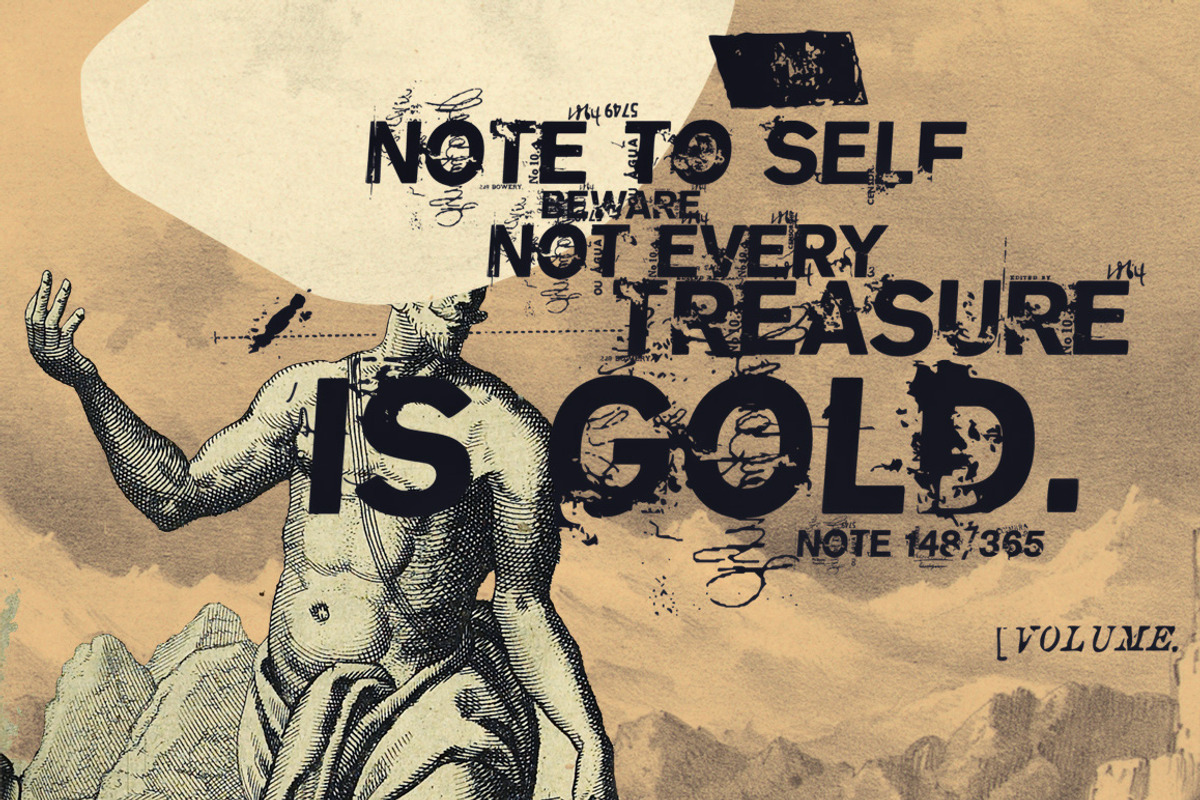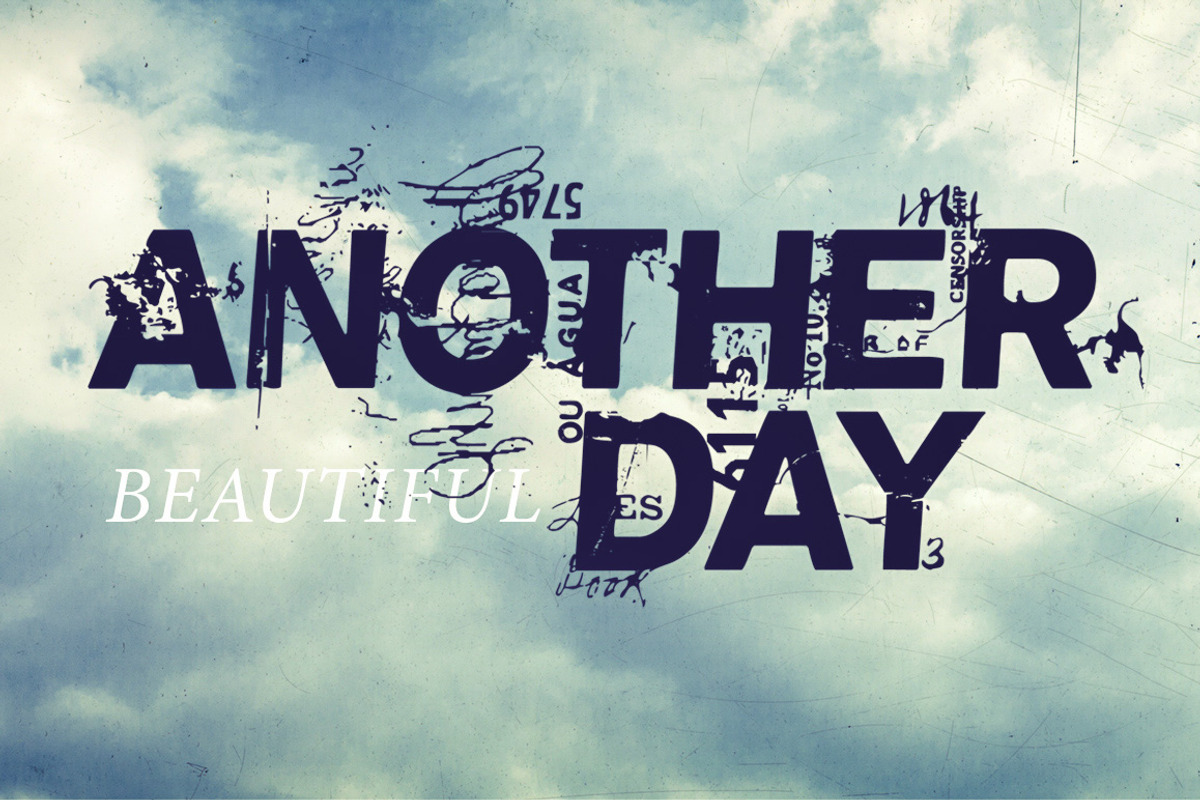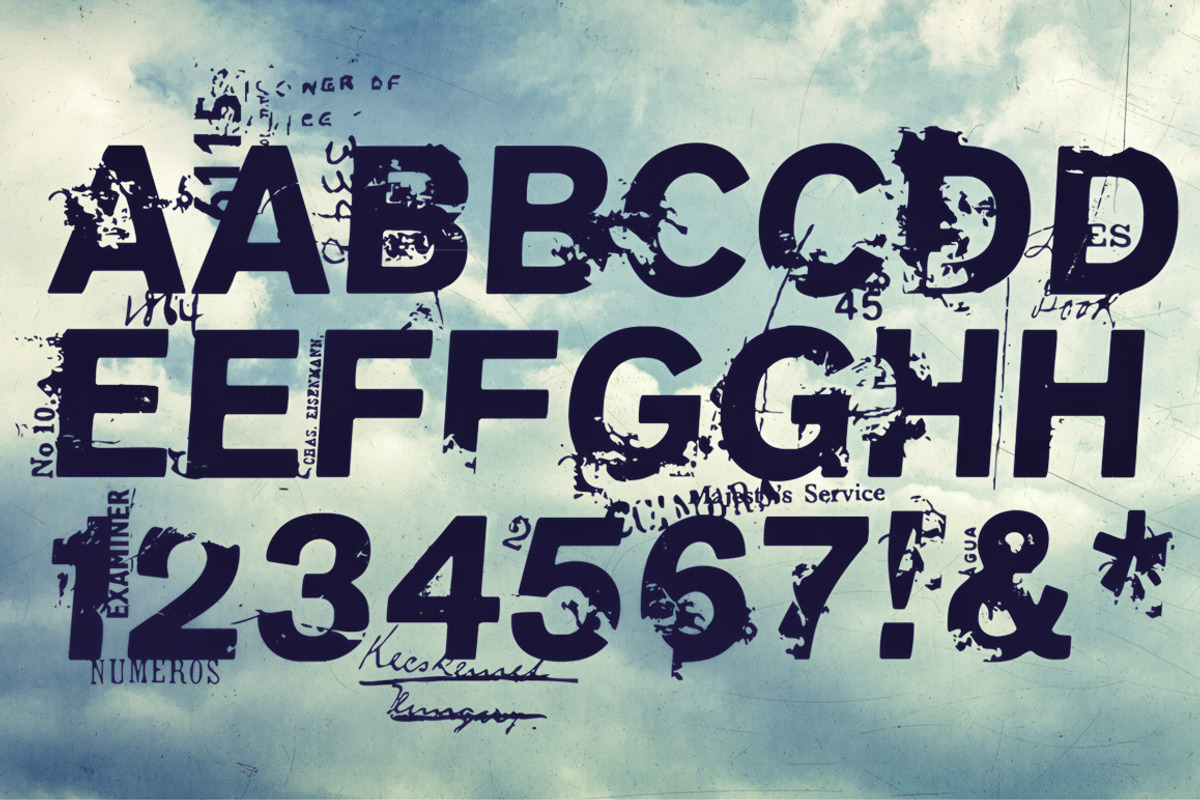
Kyoto Typeface 40% OFF by Misprinted Type is a font selected for branding, posters, packaging, typography.
- It comes with two uppercase styles and also comes with an X version, full of stains, markings and other things which will make your font loo
Why Kyoto Typeface 40% OFF is worth a look
Kyoto Typeface 40% OFF by Misprinted Type fits naturally into Branding, posters, packaging, typography.